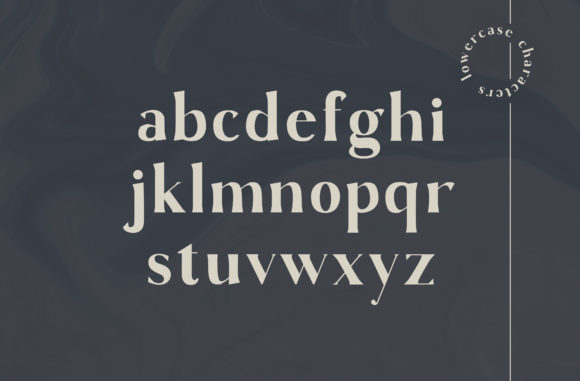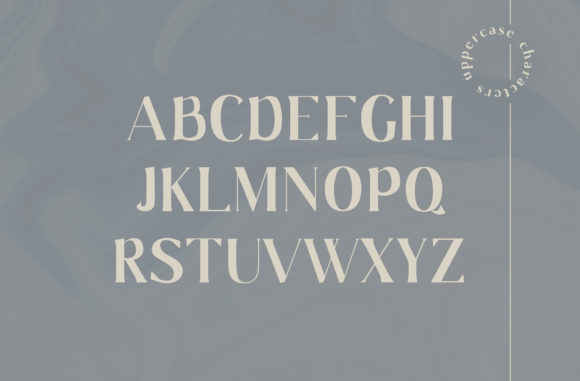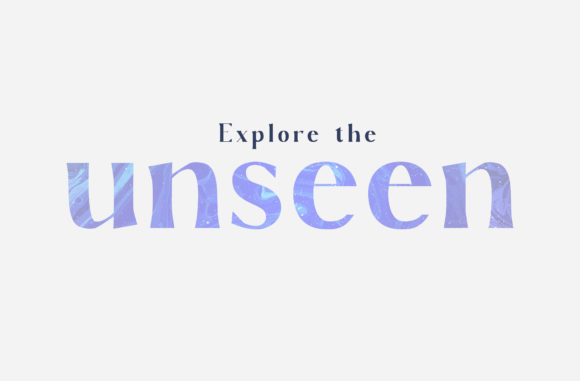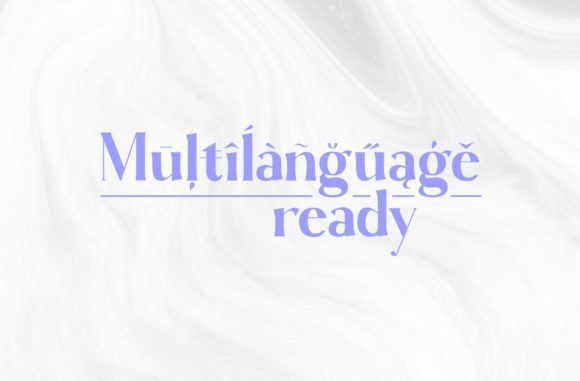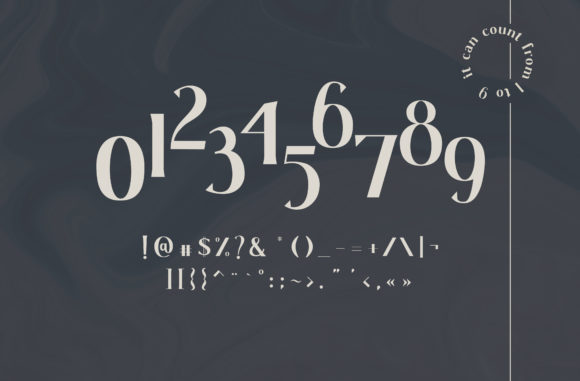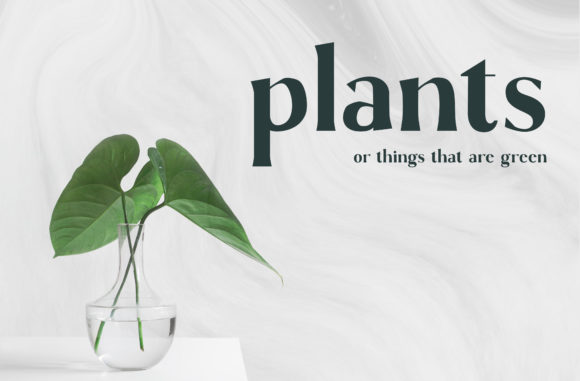
Gaskin Font: Elevate Your Design with a Modern Wedge Serif
In the world of typography, fonts play a crucial role in making or breaking a design. A well-chosen font can elevate your project, making it stand out from the crowd, while a poorly chosen one can leave it languishing in obscurity. For designers and crafters looking to create something truly unforgettable, the Gaskin font is an excellent choice. This modern wedge serif font boasts sharp edges and a unique look that is sure to turn heads.
The Gaskin Font: A Modern Twist on Classic Serif
The Gaskin font is a modern take on the traditional serif font, with a distinctive wedge serif design that sets it apart from more traditional fonts. Its high contrast and sharp edges give it a sleek, contemporary look that is perfect for designers and crafters looking to create something bold and eye-catching. Whether you’re working on a branding project, a website, or a craft project, the Gaskin font is sure to make a statement.
Key Features of the Gaskin Font
- Modern Wedge Serif Design: The Gaskin font features a unique wedge serif design that gives it a sharp, modern look.
- High Contrast: The font’s high contrast makes it perfect for creating visually striking designs that grab attention.
- Sharp Edges: The sharp edges of the Gaskin font give it a sleek, contemporary look that is sure to impress.
- Unique Look: The Gaskin font has a distinctive look that sets it apart from more traditional fonts, making it perfect for designers and crafters looking to create something truly unforgettable.
Uses for the Gaskin Font
The Gaskin font is a versatile font that can be used in a wide range of design projects, including:
- Branding: Use the Gaskin font to create a bold, eye-catching logo that sets your brand apart from the competition.
- Web Design: The Gaskin font is perfect for web design, adding a touch of modern sophistication to any website.
- Crafting: Whether you’re creating handmade cards, gift tags, or other craft projects, the Gaskin font is a great choice.
- Graphic Design: The Gaskin font can be used in a wide range of graphic design projects, from brochures and flyers to posters and banners.
Tips for Using the Gaskin Font
To get the most out of the Gaskin font, here are a few tips to keep in mind:
- Use it sparingly: While the Gaskin font is bold and eye-catching, it can be overwhelming if used too much. Use it sparingly to create a focal point in your design.
- Pair it with a neutral font: Pair the Gaskin font with a more neutral font to create a striking contrast that adds visual interest to your design.
- Experiment with different sizes: The Gaskin font looks great in a variety of sizes, from large headings to smaller body text.
| Font Name | Gaskin Font |
| Author | Christine Teixeira |
The Gaskin font is a modern wedge serif font with a unique look that is sure to elevate your design. Its sharp edges and high contrast make it perfect for creating visually striking designs that grab attention. Whether you’re a designer or crafter, the Gaskin font is a great choice for anyone looking to create something truly unforgettable. So why not give it a try and see the impact it can have on your next design project?